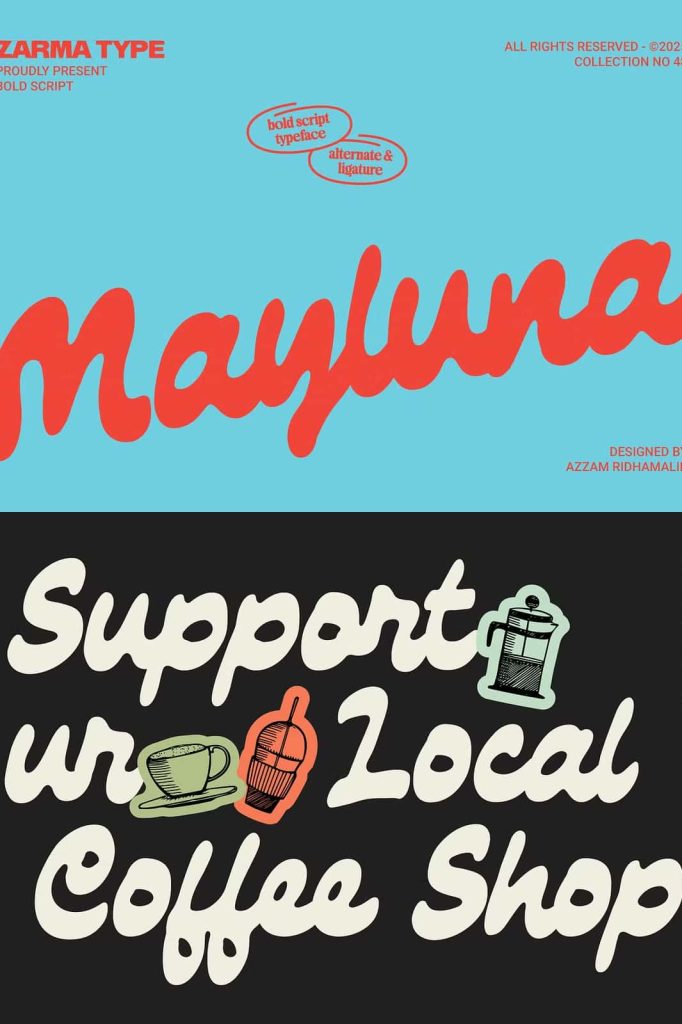
Mayluna Bold Script Font for Playful and Expressive Designs
Mayluna is a vibrant bold script font designed to deliver warmth, personality, and visual impact in every project. As the sister typeface of Chunko bold font, Mayluna carries a similar energy while introducing its own unique charm through juicy curves, smooth connections, and a handcrafted flow. This font blends retro inspiration with a fresh and playful attitude, making it an excellent choice for designers who want to create bold yet approachable visuals.
Bold Script Style with Juicy Curves
Mayluna stands out through its thick, rounded strokes and flowing script structure. Each letter features soft, exaggerated curves that create a sense of movement and rhythm. This design approach gives the font a lively and dynamic personality, helping your typography feel engaging and full of life.
The bold weight ensures strong visibility, making it perfect for display use. Whether you design headlines or logos, Mayluna maintains clarity while delivering a playful and expressive look.
Smooth Ligatures for Seamless Flow
One of the defining features of Mayluna is its smooth ligatures. These natural connections between letters create a continuous and cohesive flow, enhancing the handwritten feel of the font. Instead of disconnected characters, the text appears fluid and harmonious.
This seamless structure improves readability while adding elegance to your designs. It also allows you to create more polished compositions without additional adjustments.
Retro Charm with a Fresh Twist
Mayluna captures the essence of retro typography while adapting it for modern design needs. Its playful curves and bold presence reflect vintage influences, while its clean execution ensures it remains relevant in contemporary projects.
You can use this font to evoke nostalgia while still maintaining a fresh and updated aesthetic. This balance makes it suitable for a wide range of creative applications.
Perfect for Branding and Visual Identity
Mayluna provides a strong foundation for branding projects. Its bold and friendly appearance helps you create logos and brand elements that feel both distinctive and approachable. The font communicates confidence without appearing harsh, making it ideal for businesses that want to connect with their audience on a personal level.
Designers can use Mayluna to build cohesive brand identities that stand out across different platforms. Its unique style ensures that your visuals remain memorable and engaging.
Ideal for Packaging and Product Design
In packaging design, typography plays a key role in attracting attention. Mayluna delivers a bold and inviting look that helps products stand out on shelves and online marketplaces. Its rounded shapes and smooth flow create a friendly and appealing aesthetic that resonates with customers.
You can use it to highlight product names, slogans, and key details, ensuring that your packaging communicates clearly and effectively.
Enhance Social Media and Marketing Content
Mayluna works exceptionally well in digital environments where strong visuals are essential. Its bold script style captures attention quickly, making it ideal for social media graphics, advertisements, and promotional campaigns.
Use it to create engaging posts, banners, and visual content that encourages interaction and builds brand recognition. The font’s playful personality helps your designs stand out in crowded feeds.
Versatile for Creative Projects
Beyond branding and marketing, Mayluna adapts easily to a variety of creative uses. You can apply it to posters, apparel, greeting cards, and invitations to add a touch of warmth and creativity. Its handcrafted feel makes every design look more personal and expressive.
The font also pairs well with simpler typefaces, allowing you to create balanced layouts that combine bold display text with clean supporting elements.
Key Features of Mayluna Font
- Bold script font with playful and expressive character
- Juicy curves and smooth handcrafted flow
- Includes seamless ligatures for natural connections
- Retro-inspired style with a modern twist
- Perfect for branding, packaging, and digital content
Create Warm and Impactful Designs
Mayluna bold script font gives you the tools to create designs that feel lively, friendly, and visually compelling. Its combination of bold structure and smooth flow allows you to explore creative ideas while maintaining a cohesive and polished result.
If you want to produce designs that make a strong statement while remaining approachable, Mayluna is an excellent choice. Use it to elevate your branding, enhance your typography, and bring your creative vision to life with confidence.